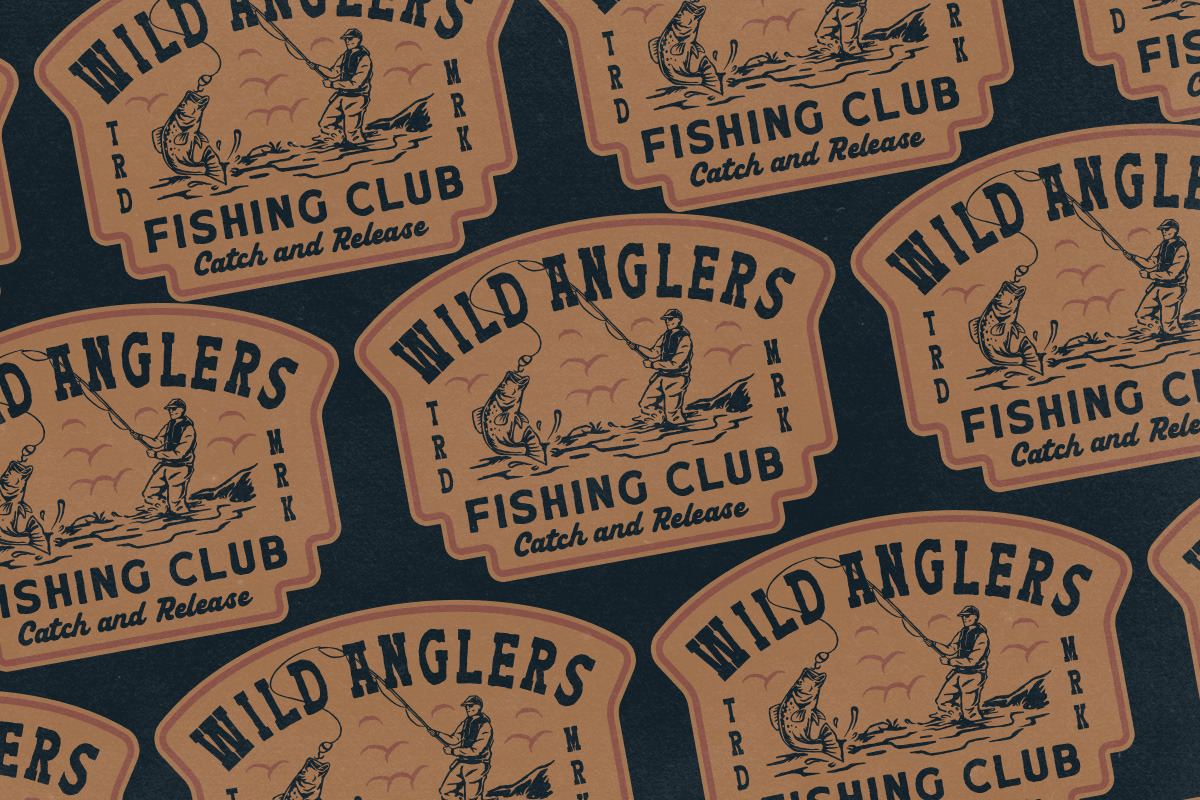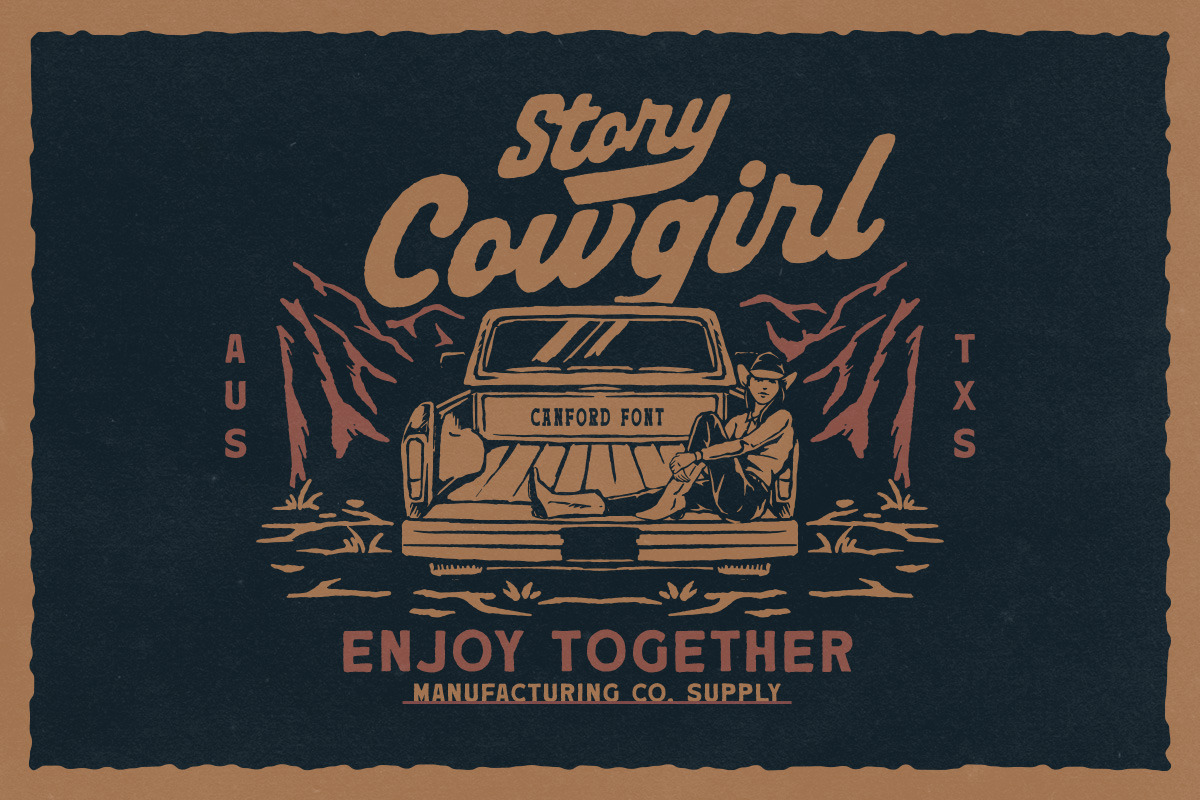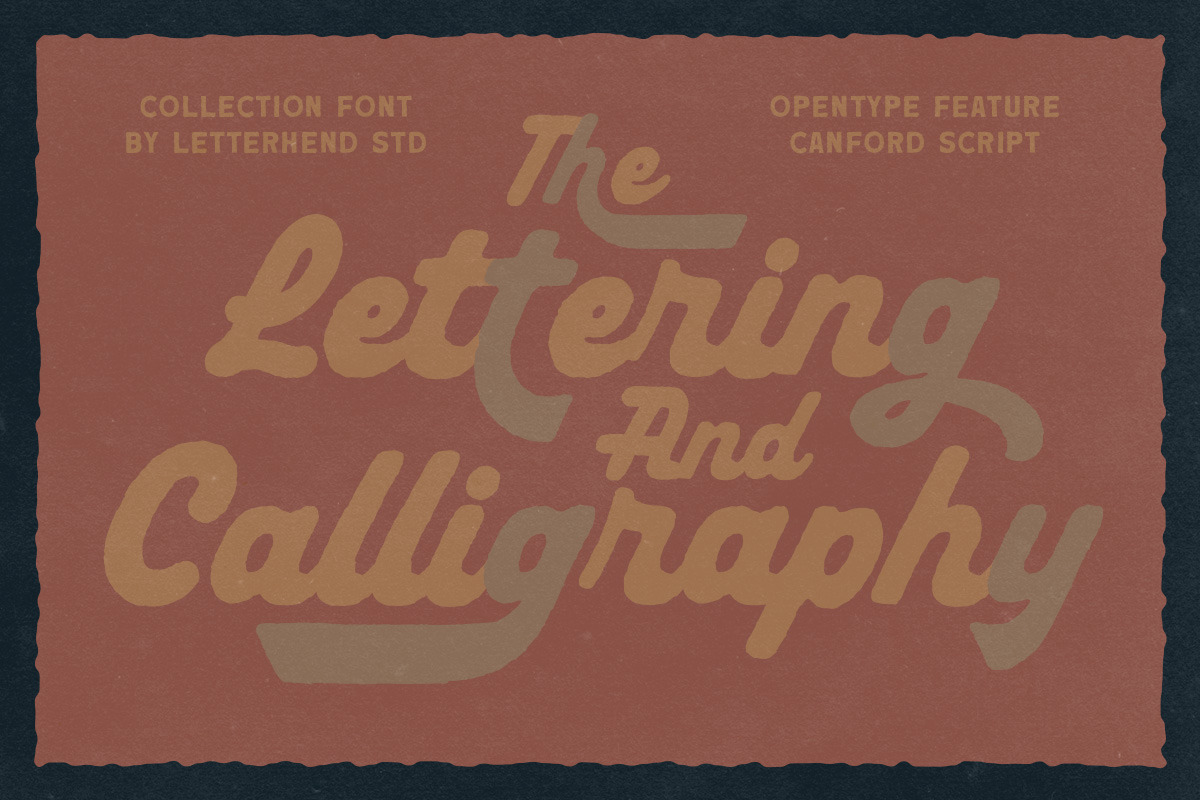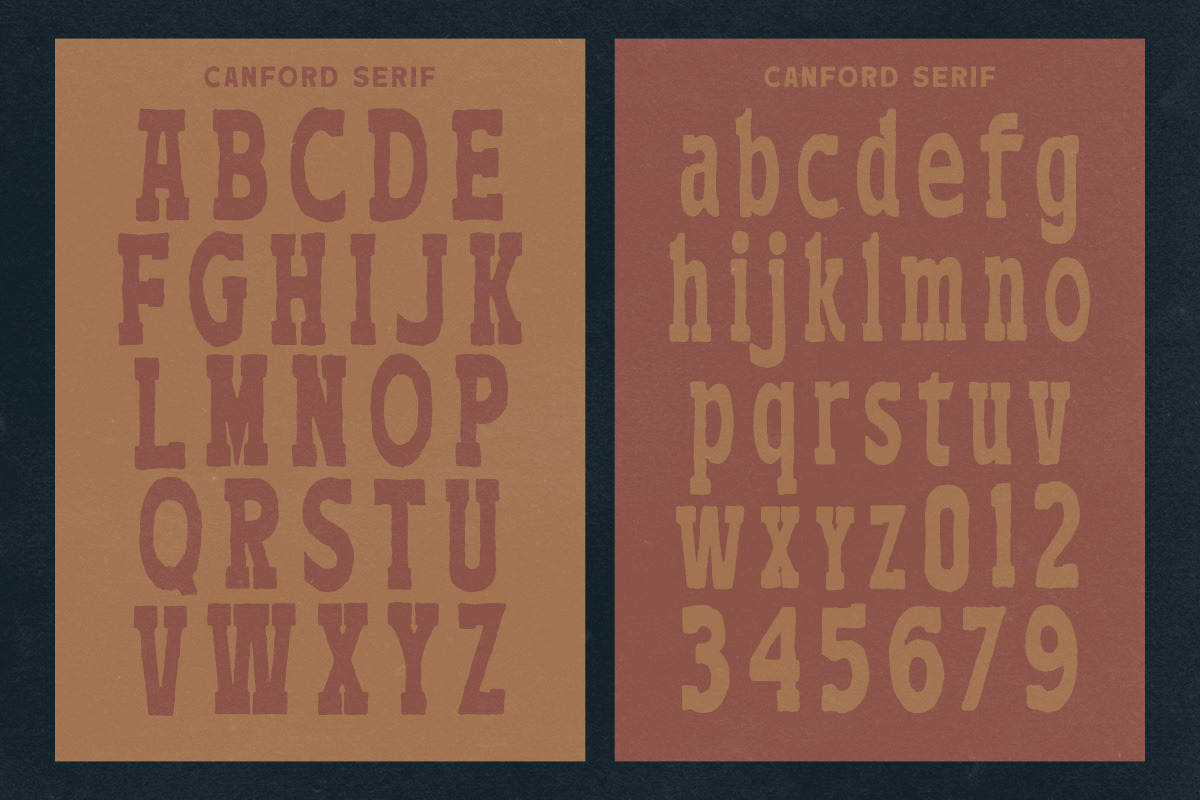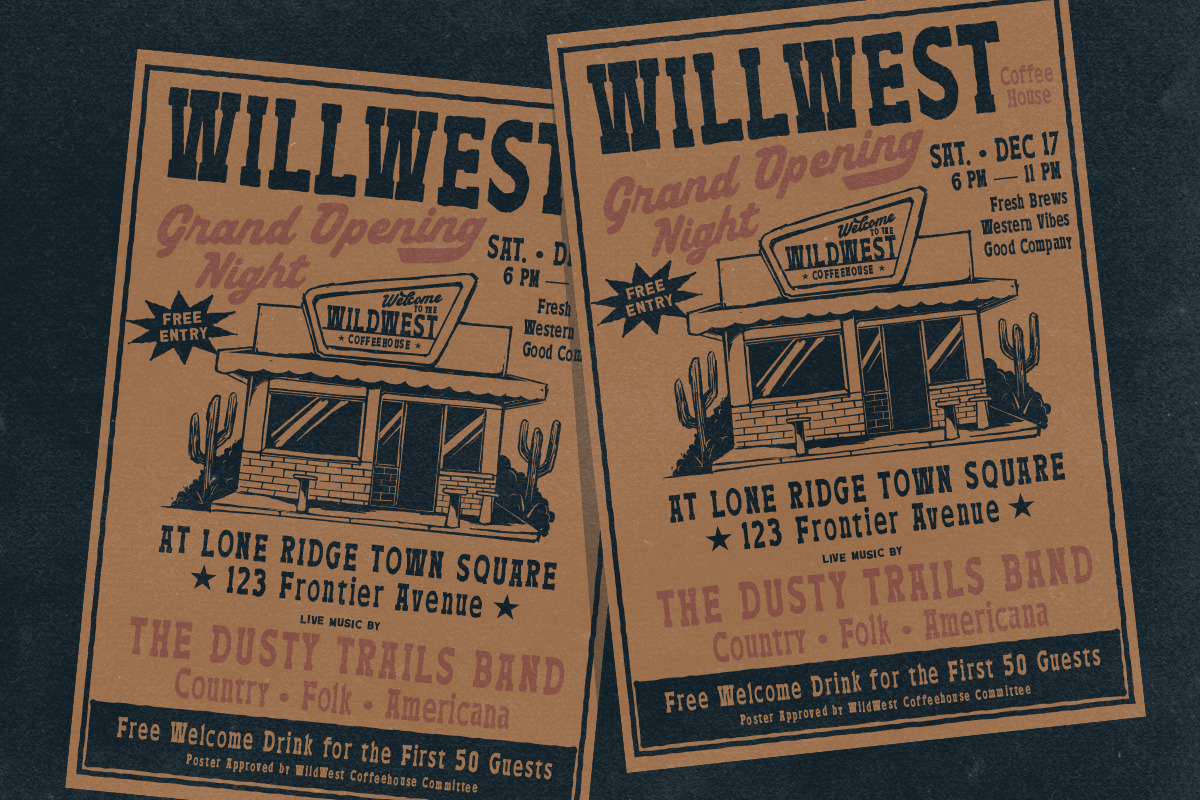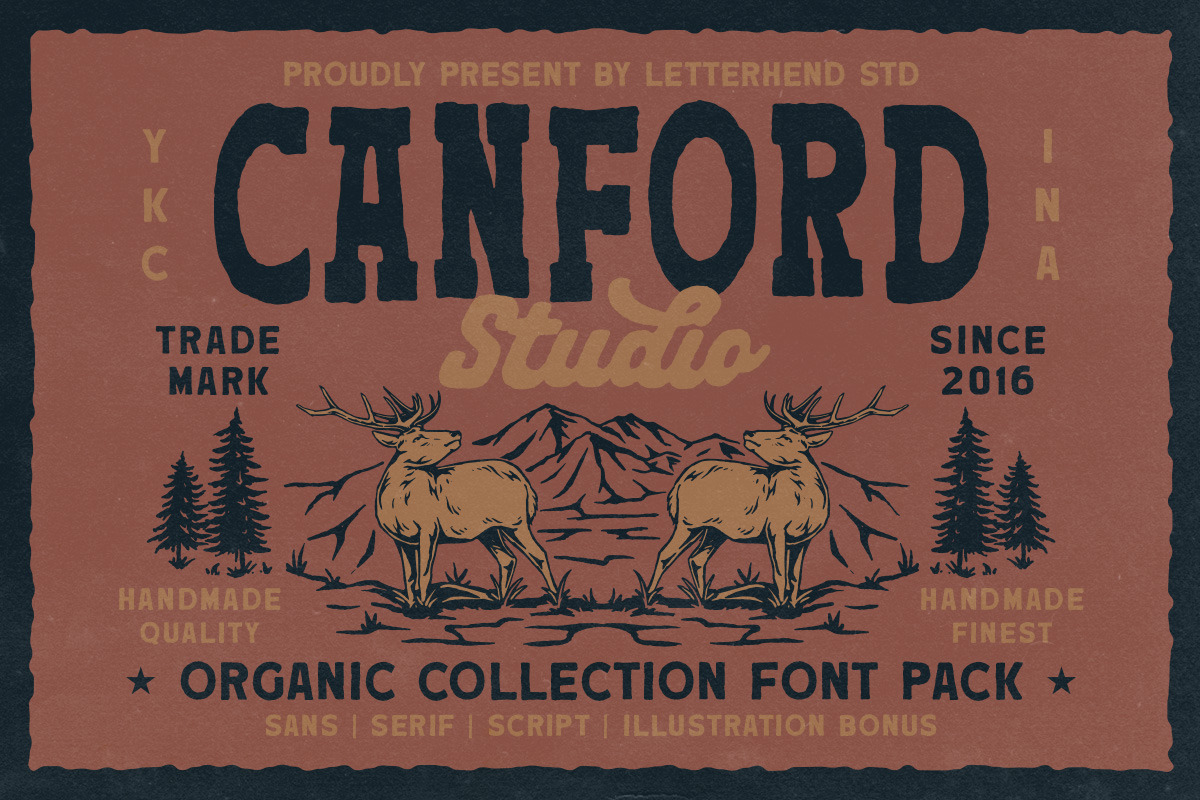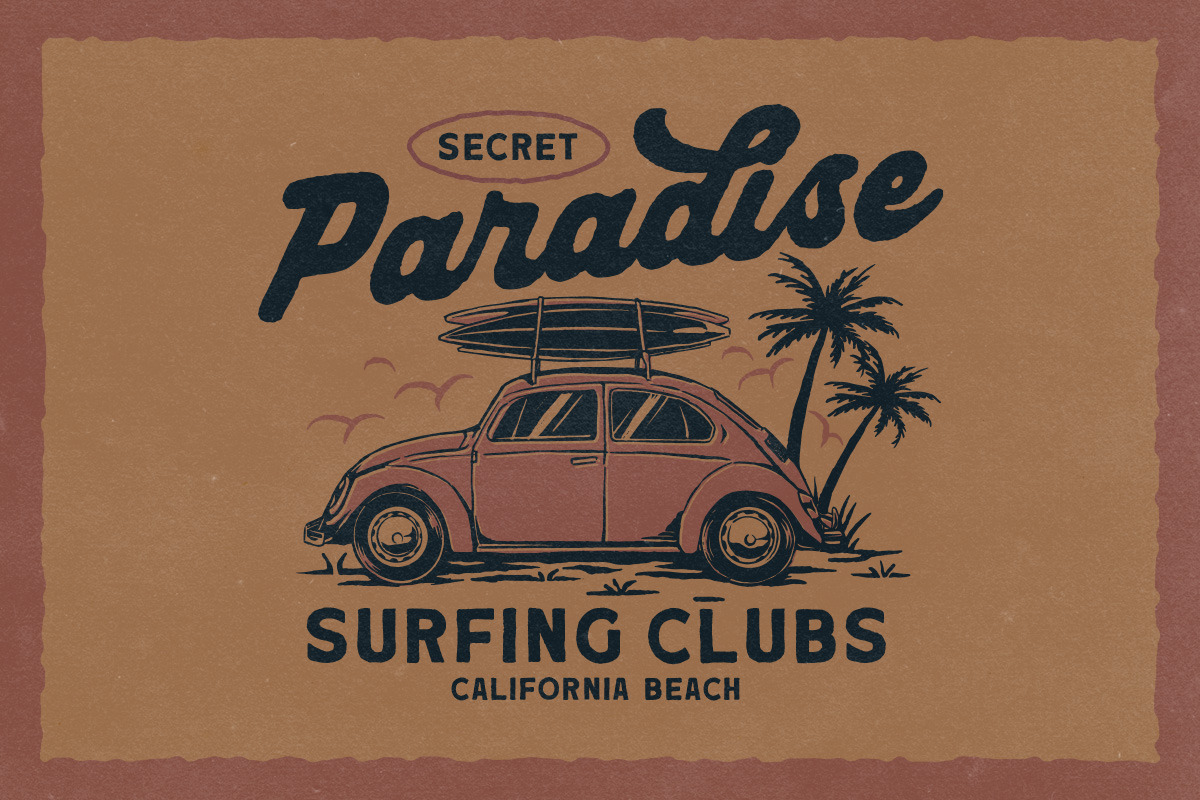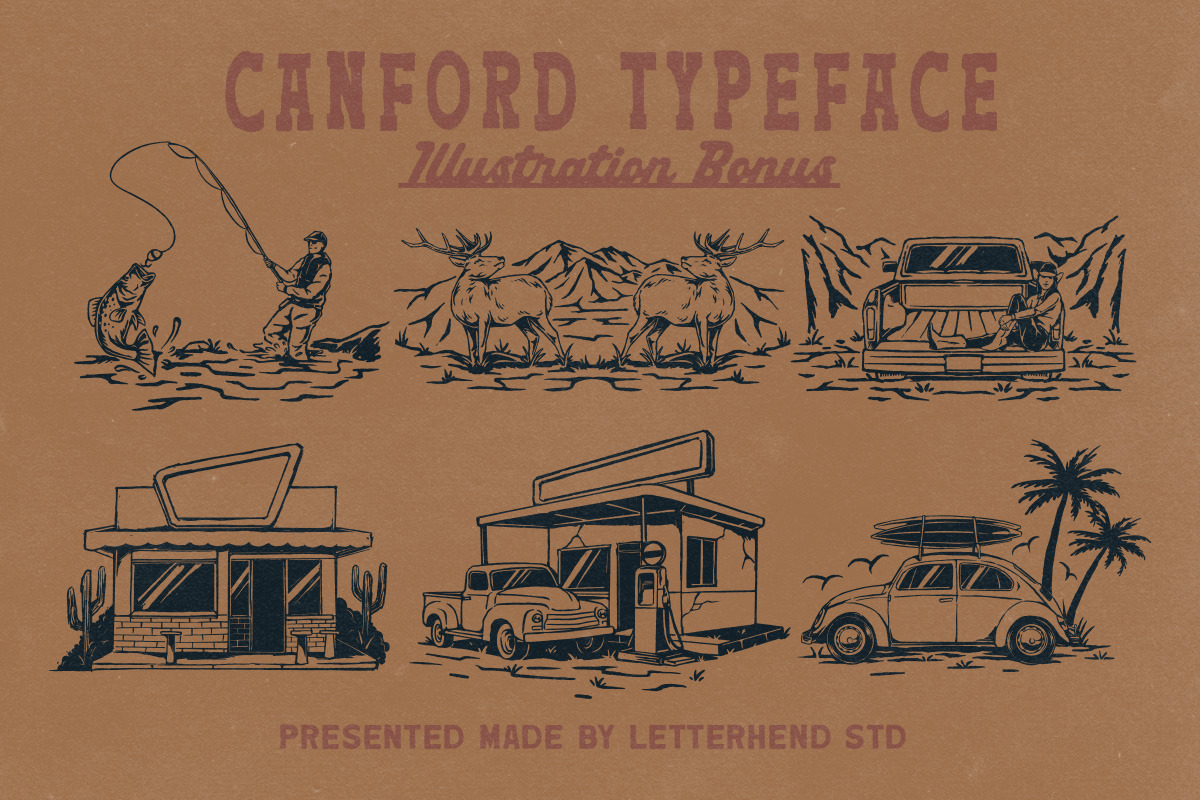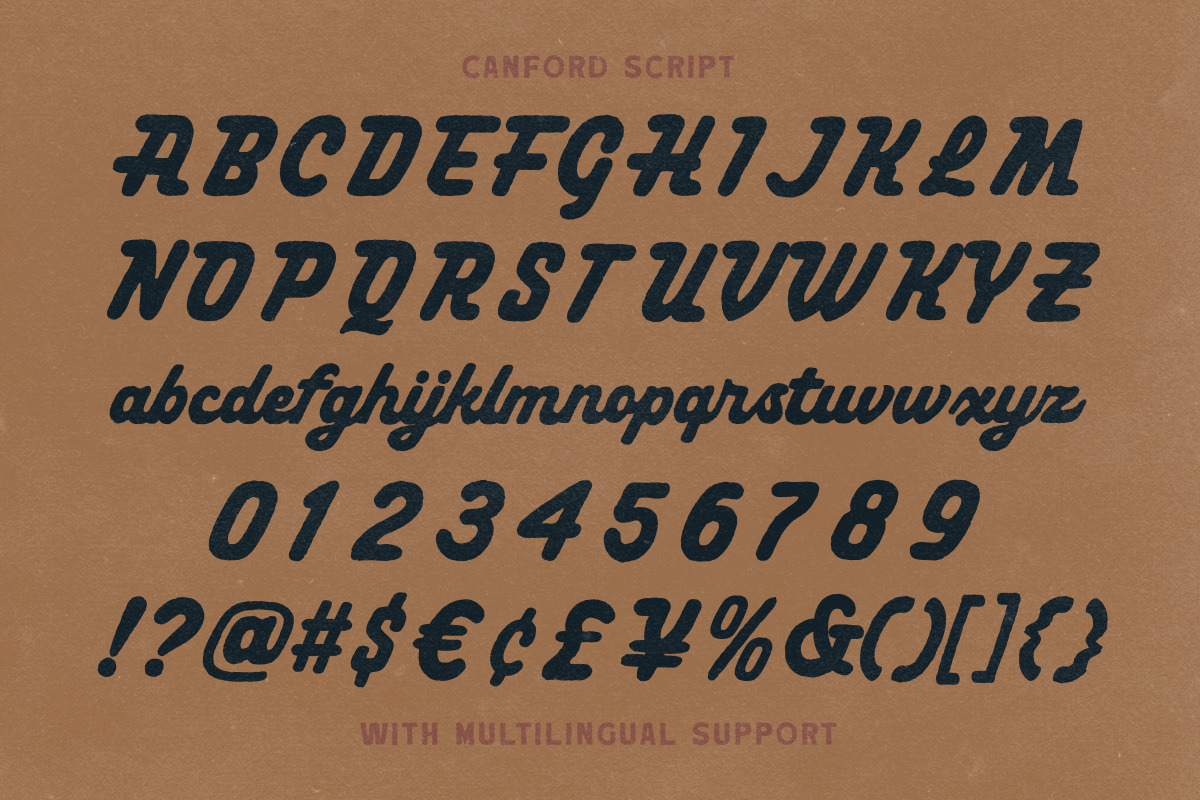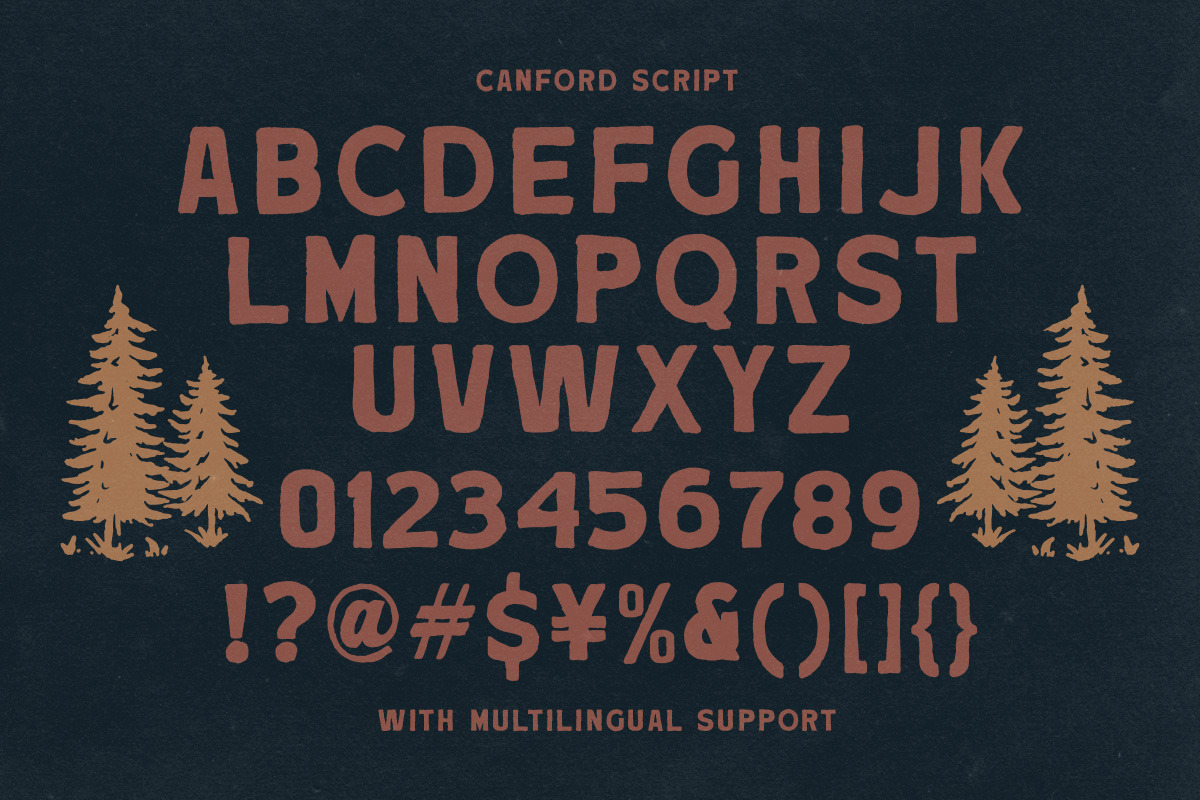
Canford - Western Font Collection
Canford brings a bold, rustic energy with its sturdy letterforms, weathered texture, and hand-hewn character that echoes classic outdoor badges and heritage craftsmanship. Its mix of strong block type and smooth script adds both grit and warmth, creating a timeless frontier vibes.